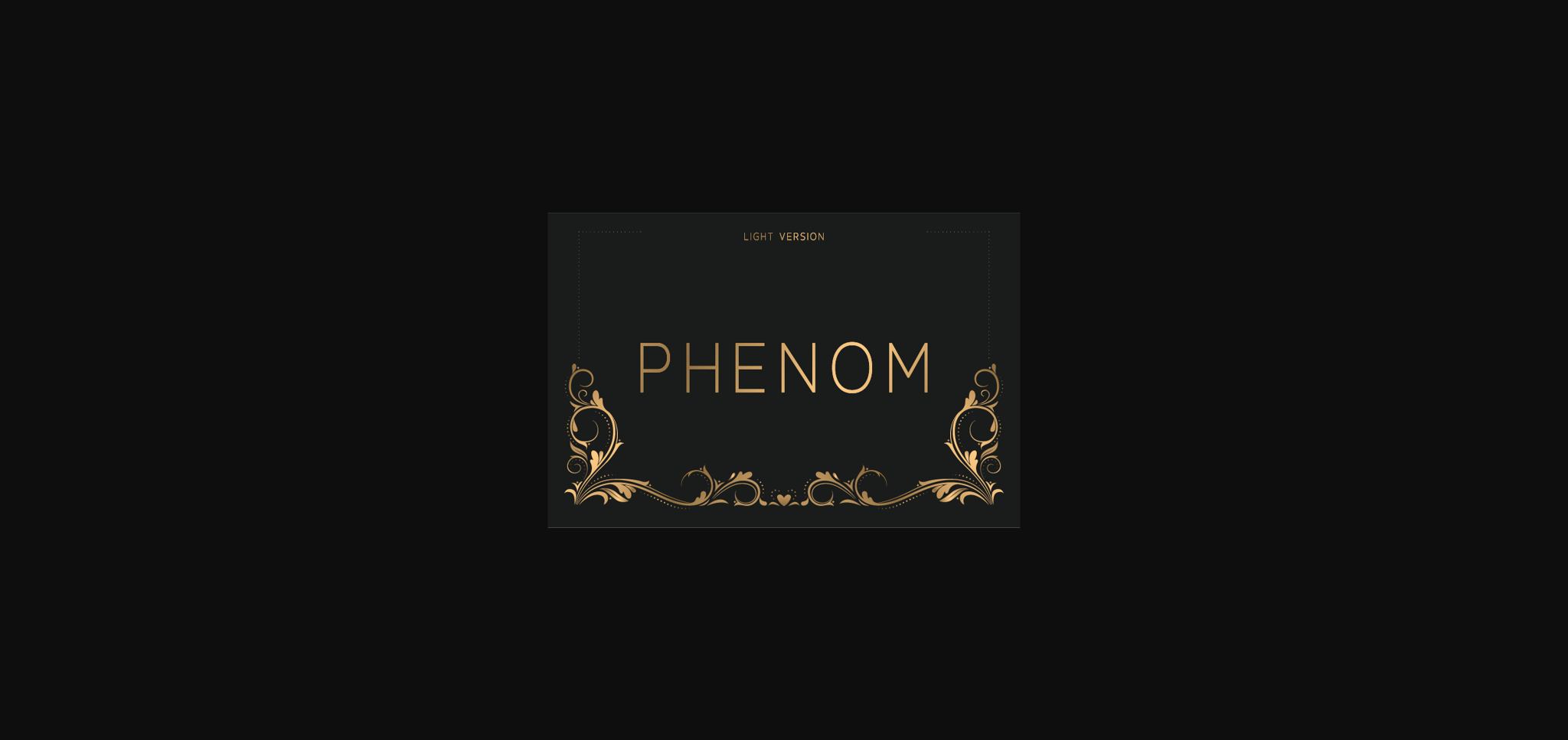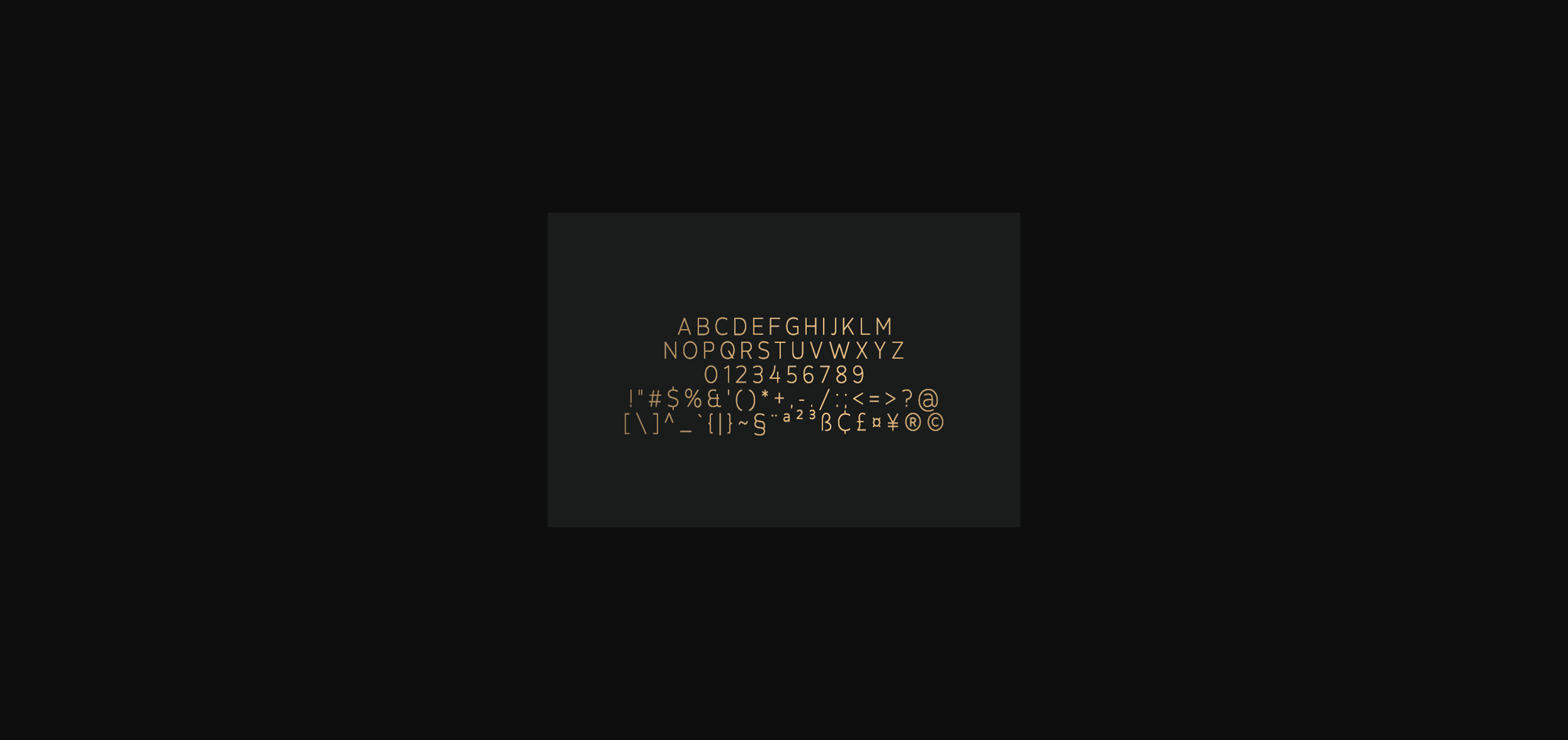
About Phenom Light Font
Phenom is a fancy, contemporary sans serif font. This amazing font includes a regular, and outline version It will complement any design need perfectly with its perfectly balanced mix of the smooth and sharp!